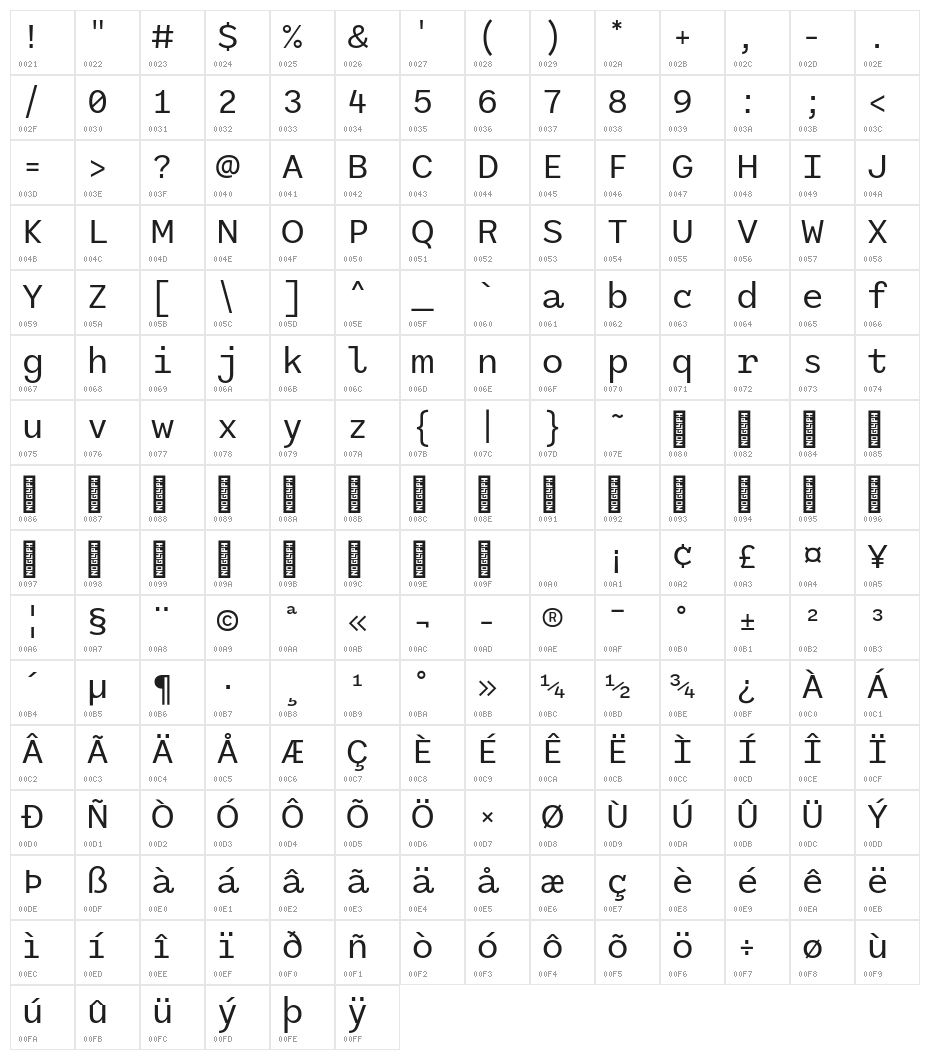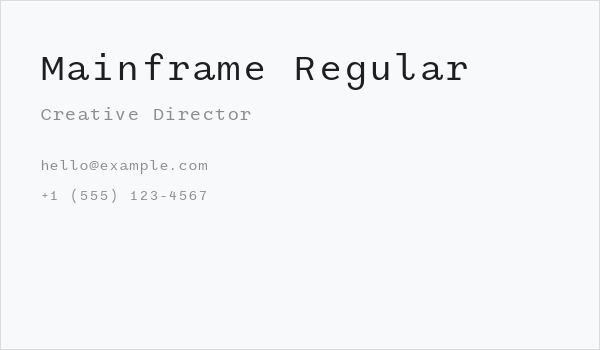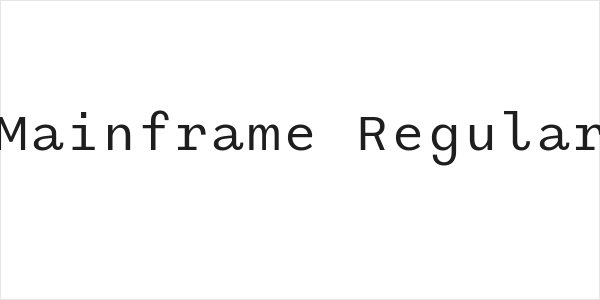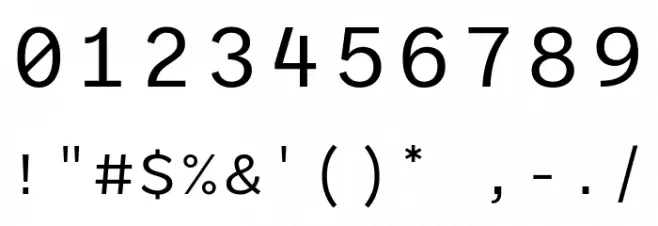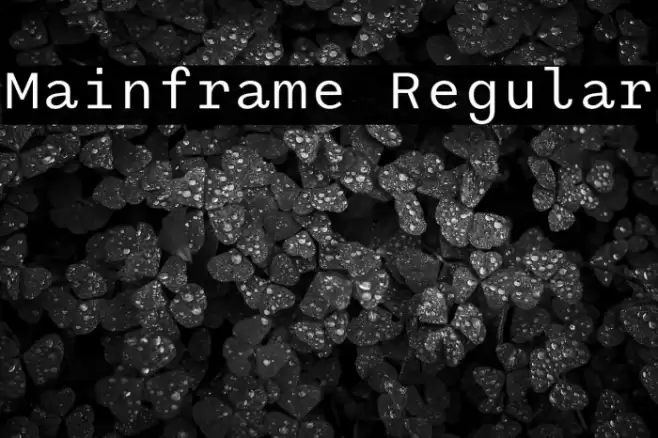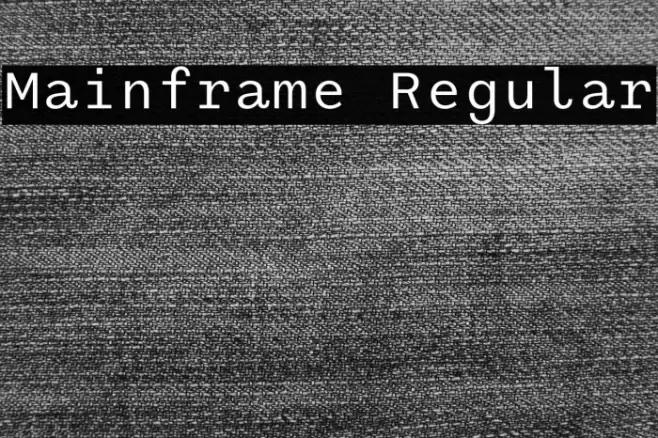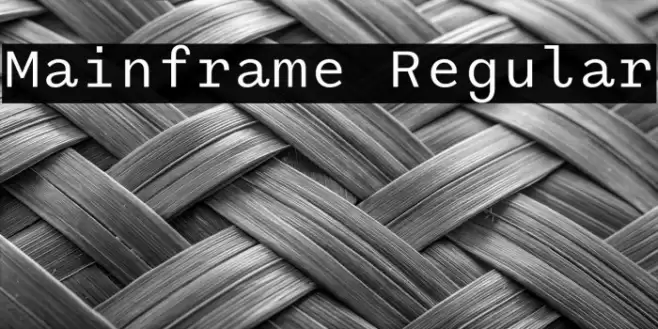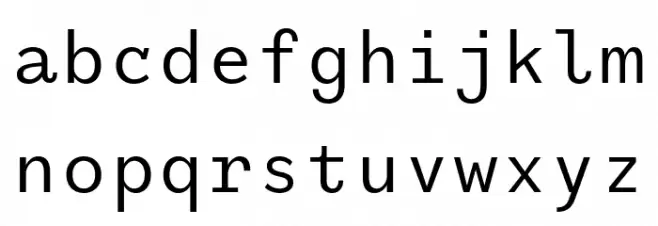
Mainframe Regular Font
Mainframe Regular Description
This typeface features a clean and modern design with a monospaced structure, offering uniformity and precision across all characters. The uppercase and lowercase letters maintain a consistent height and width, providing a balanced and orderly appearance. The numerals and special characters are crafted with clarity, ensuring readability in various contexts. The font's simplicity and straightforwardness make it suitable for technical and digital applications, where clarity and precision are paramount. Its geometric shapes and even stroke widths contribute to its contemporary and professional look.
| Use Case | Coding, Technical documentation, Digital interfaces |
| Proposed Projects | Ideal for coding environments, technical documentation, and digital interfaces where clarity and precision are essential. |